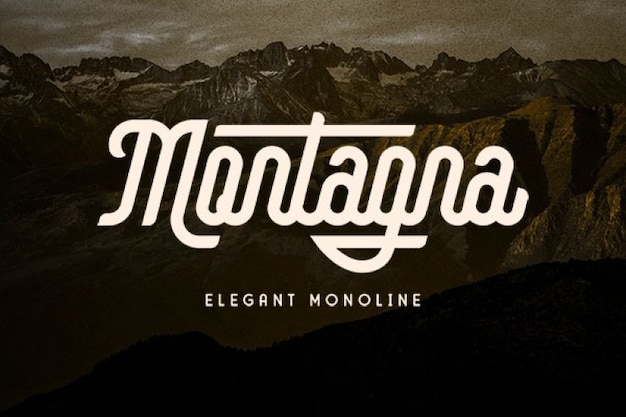
Montagna Font
This Montagna font with ligatures is all about aesthetic and fashion. Its updated retro look is unique and displays a flamboyant, diva-like personality. Its eye-catching straight swashes intensify this typeface's magnificence. It's a very suitable choice for headlines, posters, book covers, t-shirts, logos, merchandise, or anything related to theater. Download it from Freepik now!